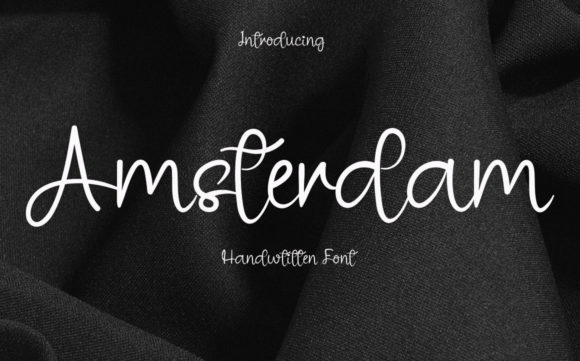
The Amsterdam Font: A Sweet and Cursive Handwritten Delight
I’ll never forget the design project that led me to discover the Amsterdam font. I was working on a romantic getaway brochure for a travel client, and I was struggling to find the perfect font to capture the essence of the city. That’s when I stumbled upon Amsterdam, a sweet and cursive handwritten font that instantly won my heart. In this article, I’ll share my experience with Amsterdam, its features, and how to make the most of it in your designs.
An Honest Review of Amsterdam Font
- ✅ The gentle, cursive script that adds a touch of romance to any design
- ✅ The font’s versatility, suitable for a wide range of projects, from wedding invitations to travel brochures
- ✅ The unique character set, including stylistic alternates and glyphs, that allow for creative experimentation
- ✅ The font’s readability, even at smaller sizes, making it perfect for body text or captions
- ⚠️ Some letters, like the uppercase “Q” and “X”, might be a bit tricky to read in certain contexts
- ⚠️ Limited availability of condensed or italic versions, which might limit its use in certain design situations
A Practical Guide to Using Amsterdam Font
The Designer Inspiration Behind Amsterdam
Amsterdam’s design story is one of passion and love. Imagine a designer who fell in love with the charming streets of Amsterdam, captivated by the city’s romantic atmosphere. Inspired by the city’s beauty, the designer created a font that would reflect its gentle, whimsical spirit. And so, Amsterdam font was born – a sweet and cursive handwritten font that brings a touch of joy and romance to any design.
| What type of projects is Amsterdam font best suited for? | Amsterdam font is versatile and can be used for a wide range of projects, including wedding invitations, travel brochures, and social media graphics. |
| Is Amsterdam font suitable for body text? | Yes, Amsterdam font is readable even at smaller sizes, making it suitable for body text or captions. |